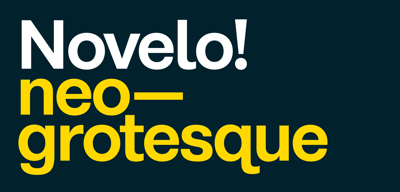
Novelo
Novelo font
Novelo Font Family was designed by Zac Hallgarten and published by AcidType. Novelo contains 18 styles and family package options. Novelo is a 9 weight neo-grotesk typeface family.Featuring; over 800 characters and symbols, including over 100 ligatures, with extended language support, and true italics. The wide selection of alternate characters allows for deep customisation, making the Novelo family a powerful and flexible toolkit for the modern designer.